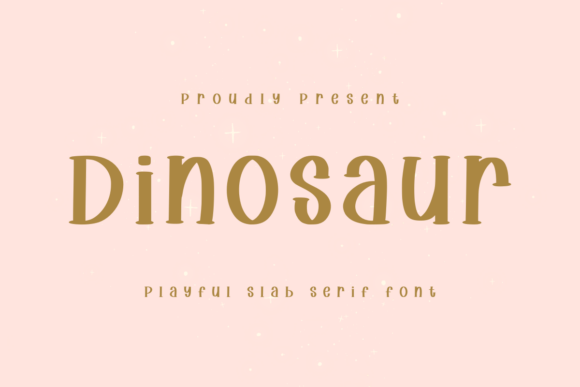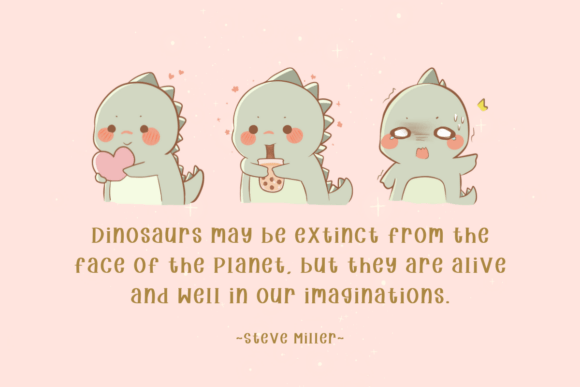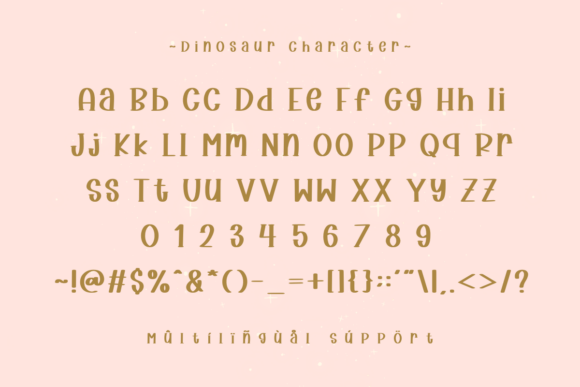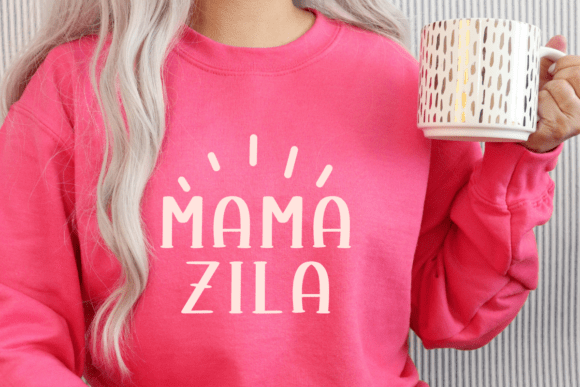
Dinosaurs Font
About the Dinosaurs Font
Welcome to the world of Dinosaurs Font, a typeface that will inspire your next great project. Dinosaurs is a fun, clean, and well-designed slab serif font, perfect for any project! Use this unique font to create stunning designs, or combine it with other fonts like scripts and sans serifs.
Dinosaurs’ strong slab serifs make it ideal for headlines, posters, and branding applications where a bold, playful statement is needed. Its friendly yet confident personality works well for children’s products, casual brands, or projects emphasizing a retro or vintage aesthetic. Avoid using it for body text or UI elements; the slab serifs can become visually overwhelming in smaller sizes or continuous paragraphs.
Pairing Dinosaurs with a clean sans-serif like Open Sans for body copy creates a strong contrast and excellent readability. For a more playful feel, consider pairing it with a handwritten script font for logos or short taglines. A geometric sans-serif would provide a modern counterpoint, offering a sophisticated balance to Dinosaurs’ robust character.
Dinosaurs Font Usage Examples
Dinosaurs Font Example